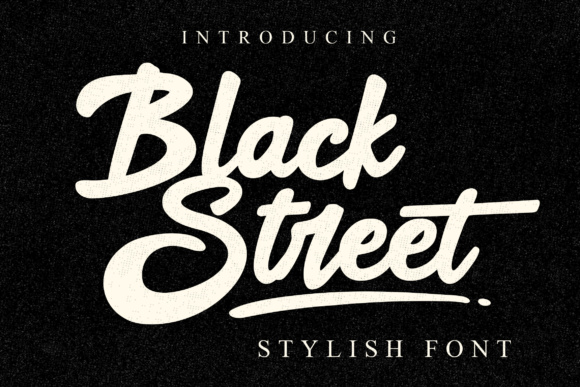
Introducing Black Street Font, a beautiful script font that combines vintage charm with a modern twist. This font is a work of art, meticulously designed by the talented Lettersiro Co. Step into a world of timeless elegance, where the past meets the present in perfect harmony. With its bold strokes and captivating curves, Black Street Font is sure to leave a lasting impression on your designs.
Unlike ordinary fonts, Black Street Font possesses an unparalleled personality. Its vintage essence evokes a sense of nostalgia, transporting you back to an era of classic charm and sophistication. Yet, it's not merely a relic of the past; Black Street Font seamlessly blends vintage aesthetics with a modern touch, making it relevant and captivating in today's digital world.
Whether you're a seasoned designer or just starting out, Black Street Font is your perfect companion. Its versatility knows no bounds, making it suitable for a wide range of projects. From branding and apparel design to logos, posters, and social media graphics, Black Street Font adds an instant touch of sophistication and elegance.
If you're looking for a font that speaks volumes, look no further than Black Street Font. Its bold lines command attention, while its intricate details whisper stories of artistry and craftsmanship. Every letter is a masterpiece, carefully crafted to convey both strength and grace.
Don't settle for ordinary fonts that blend into the background. Choose Black Street Font and let your designs shine brighter than ever before. Experience the difference that a truly exceptional font can make, and unlock a world of creative possibilities.